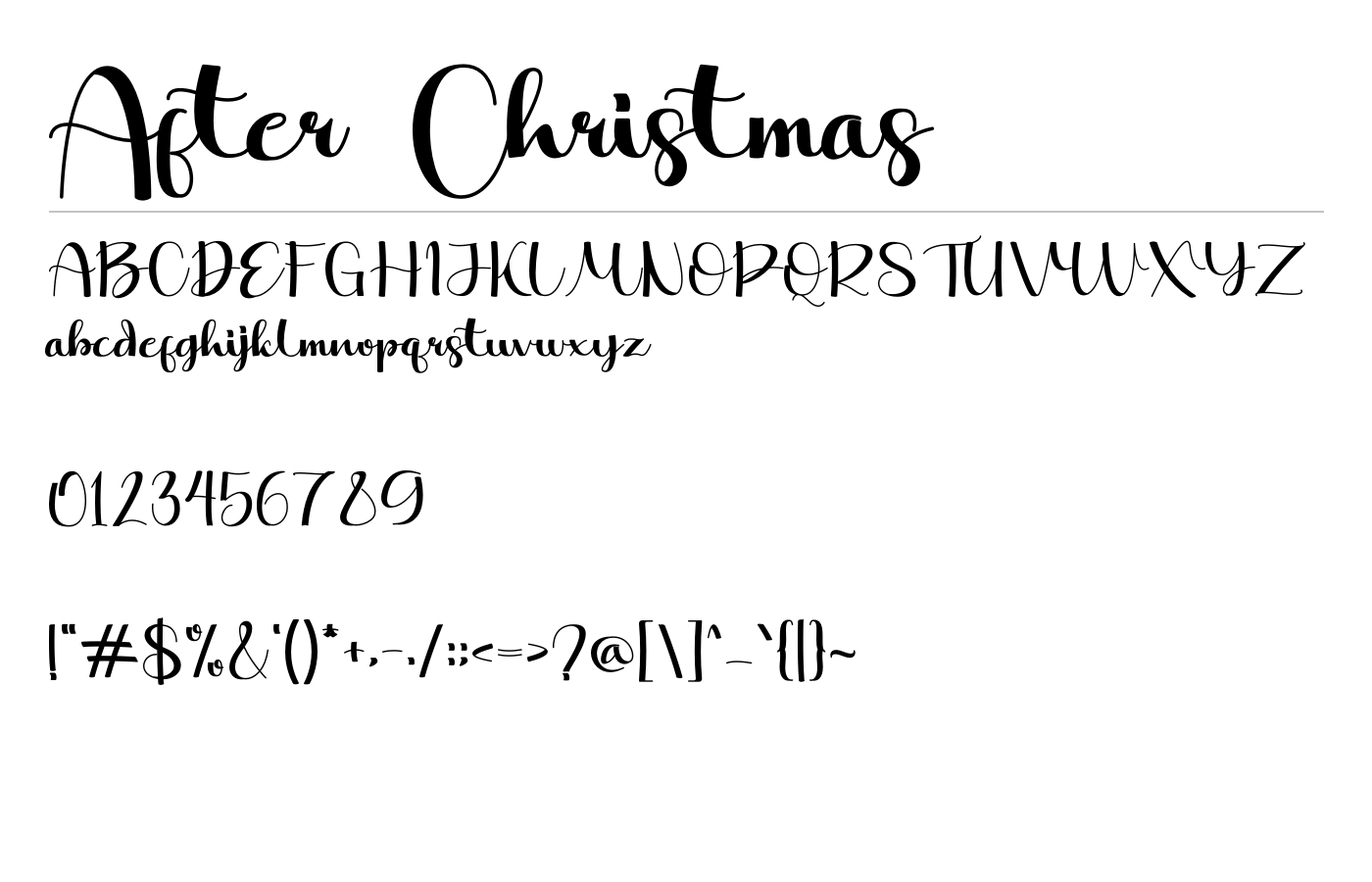
After Christmas is a playful and elegant script font with a lively, handwritten feel. Its combination of smooth, medium-weight strokes and whimsical letterforms makes it ideal for festive designs, invitations, and branding that aim to convey warmth and creativity. This font works best in headlines, logos, and packaging where a personal and charming touch is desired.
After Christmas Font
About After Christmas Font
| Font family | After Christmas Font |
| Designer | Jada Akbal |